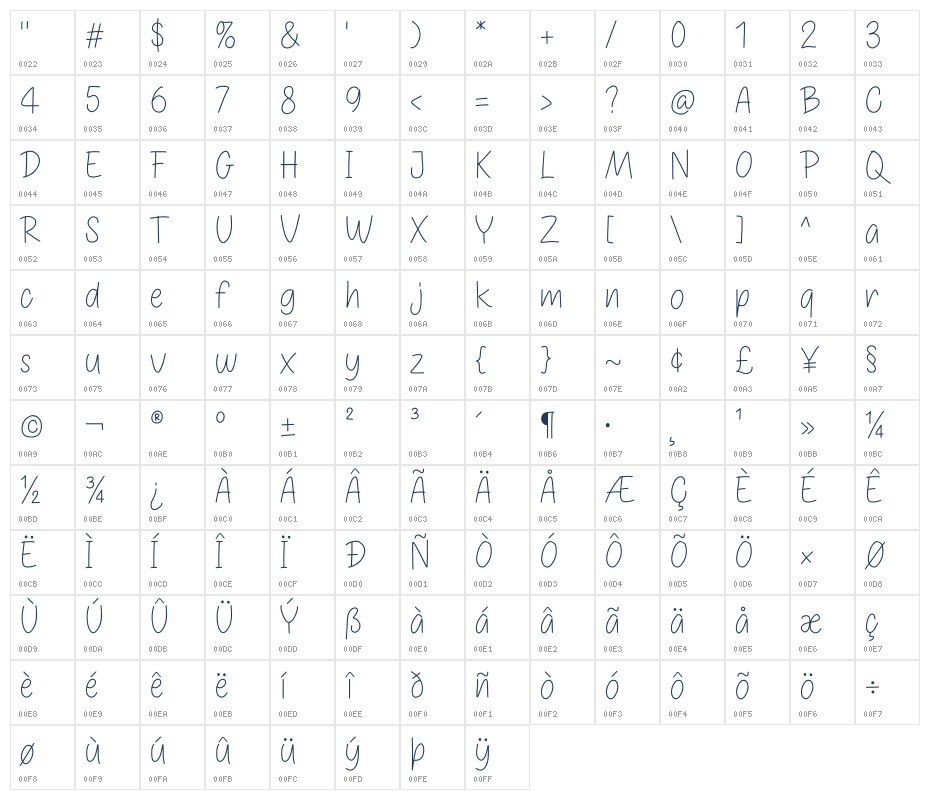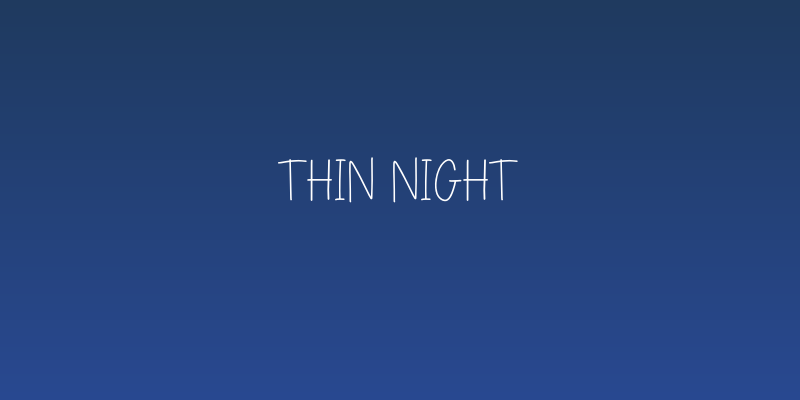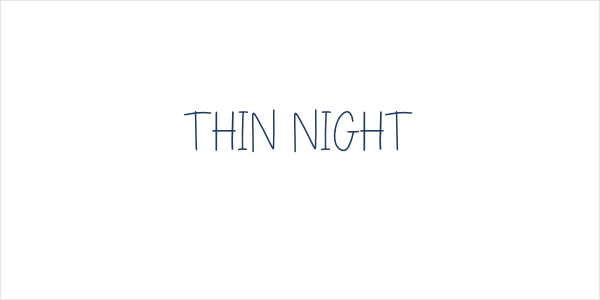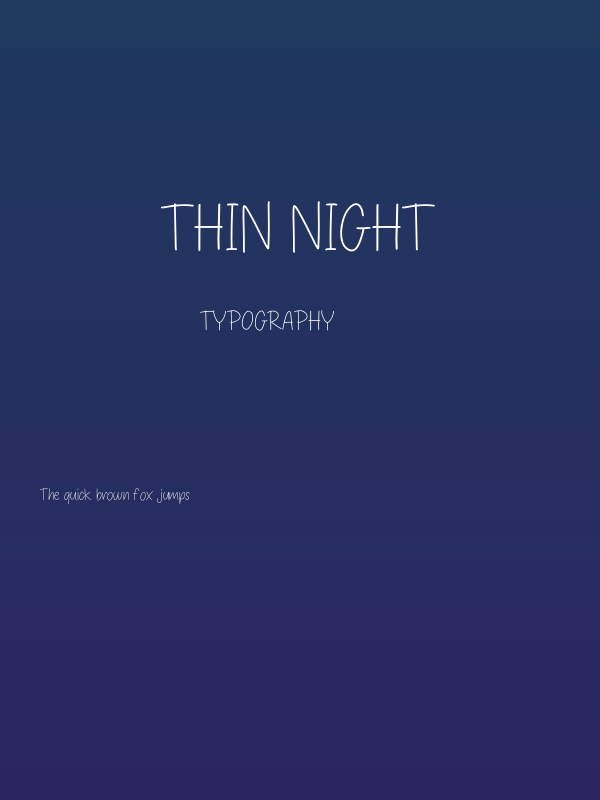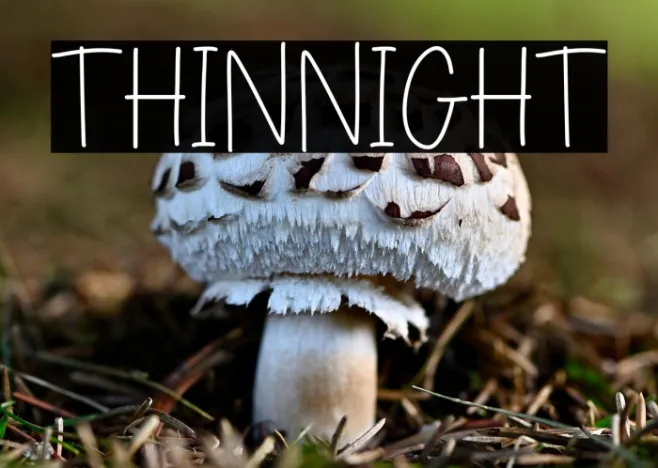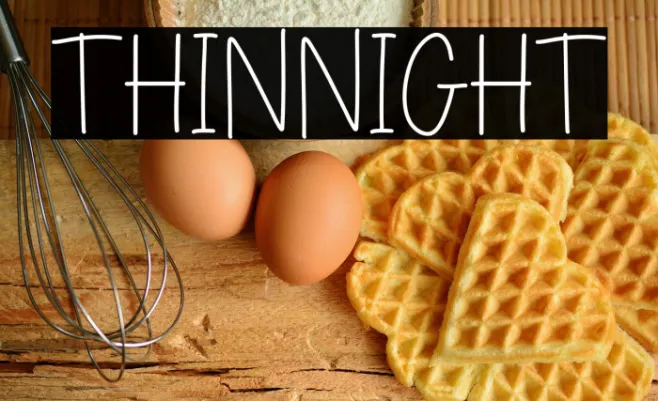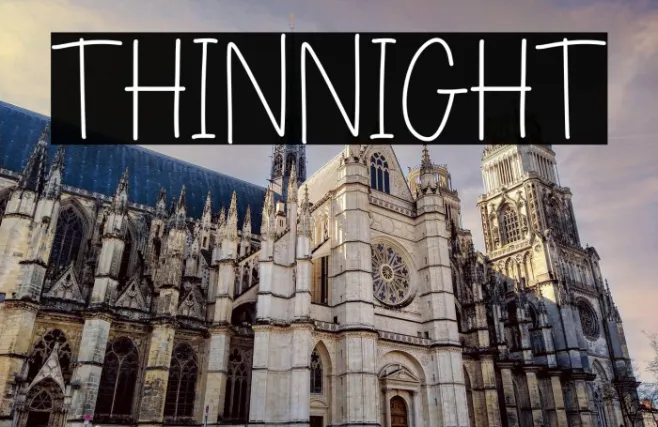
THIN NIGHT Font
THIN NIGHT Description
A handwritten, casual, and playful font with a thin, slightly irregular stroke that mimics natural handwriting.
| Overall Style | Casual, Playful, Informal |
| Use Case | Headlines, Body text, Invitations, Personal notes |